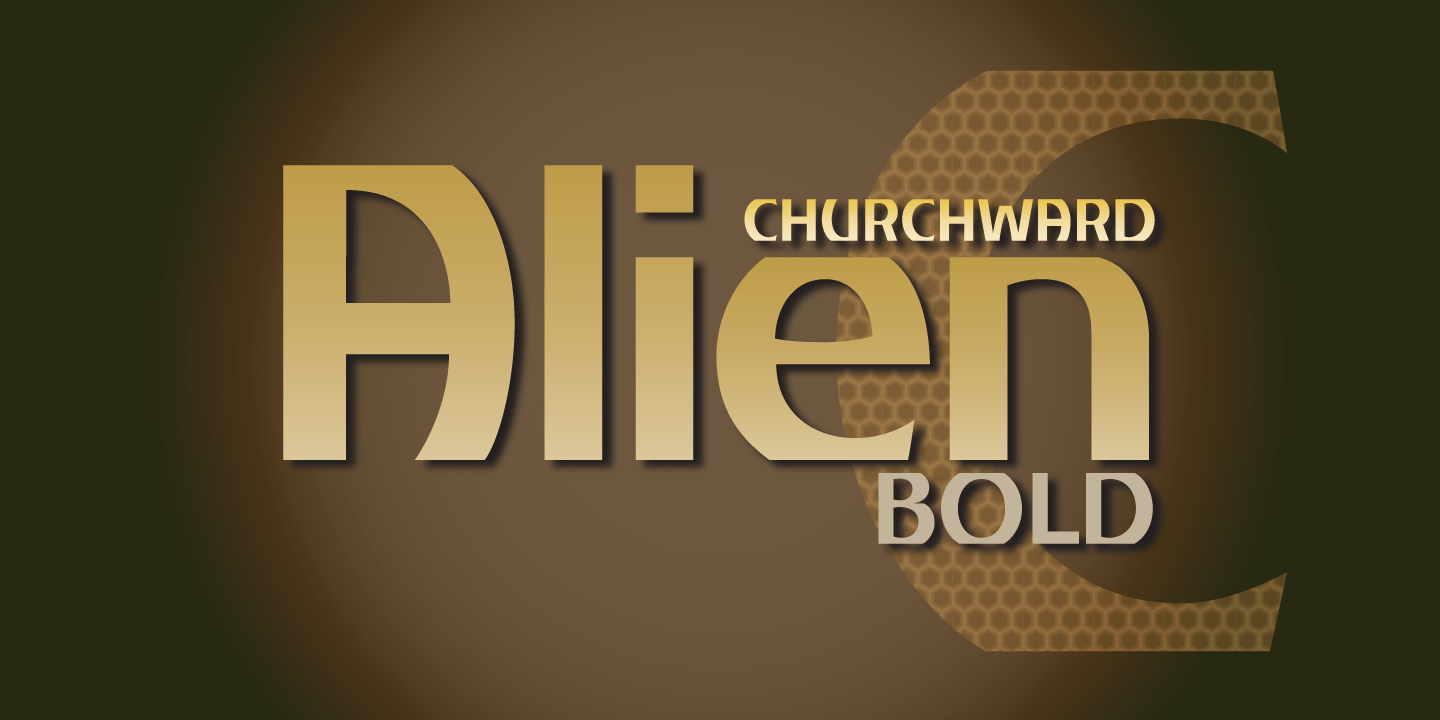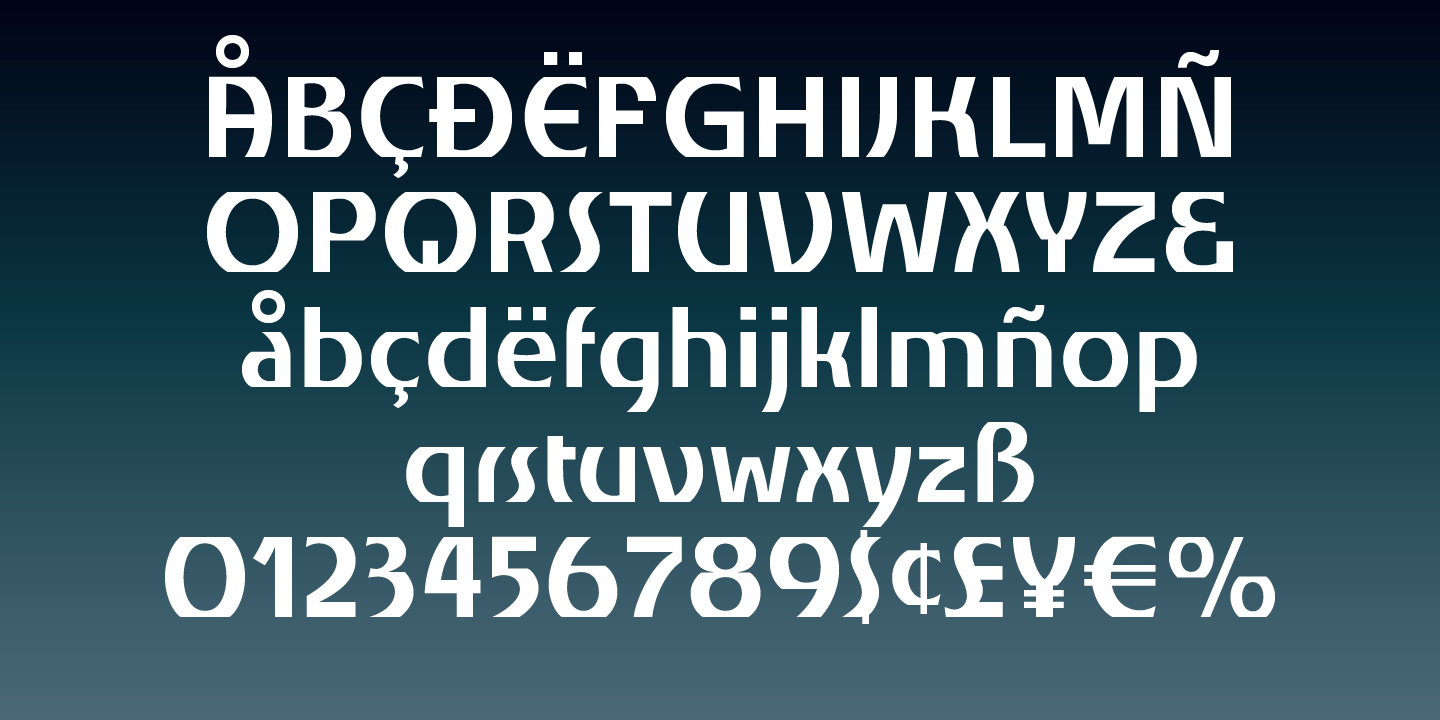
Churchward Alien Bold
Churchward Alien Bold is a unique typeface designed by Joseph Churchward. The quirky chopped top and bottom motif gives this sans serif font a unique presence suitable for display work, headlines and maybe even some short text runs.